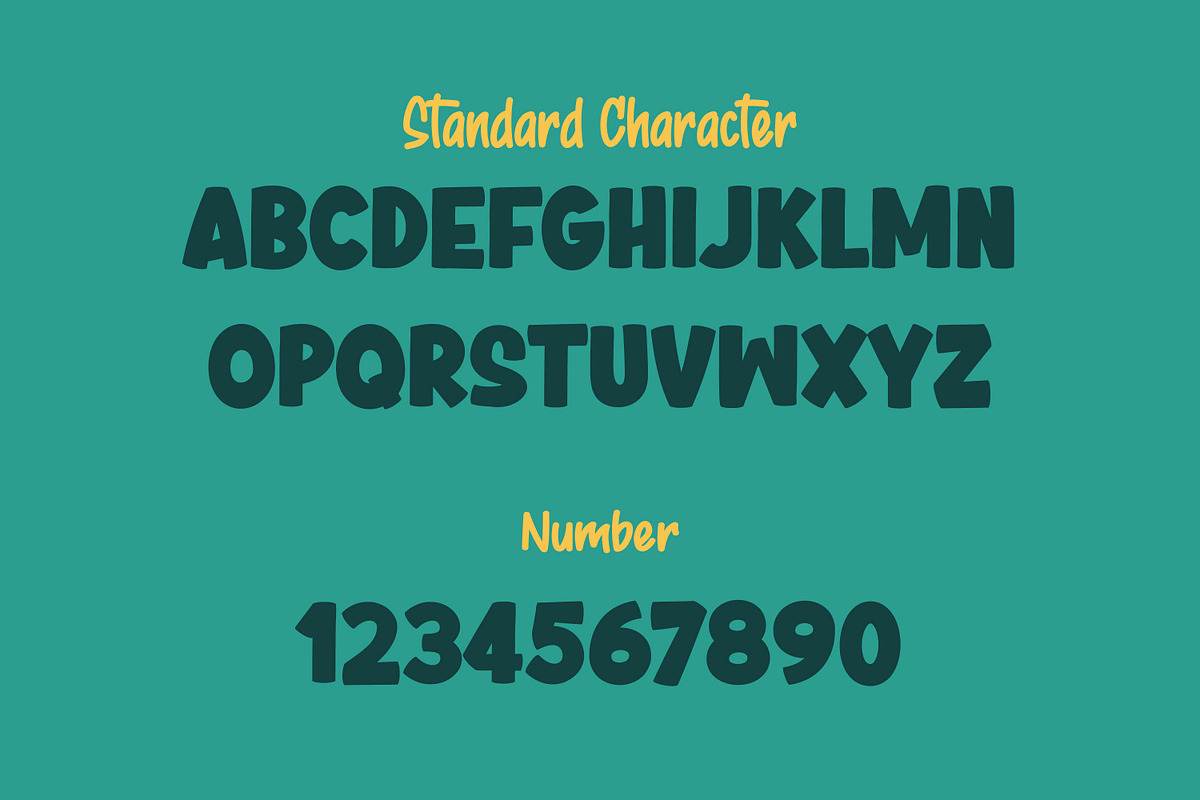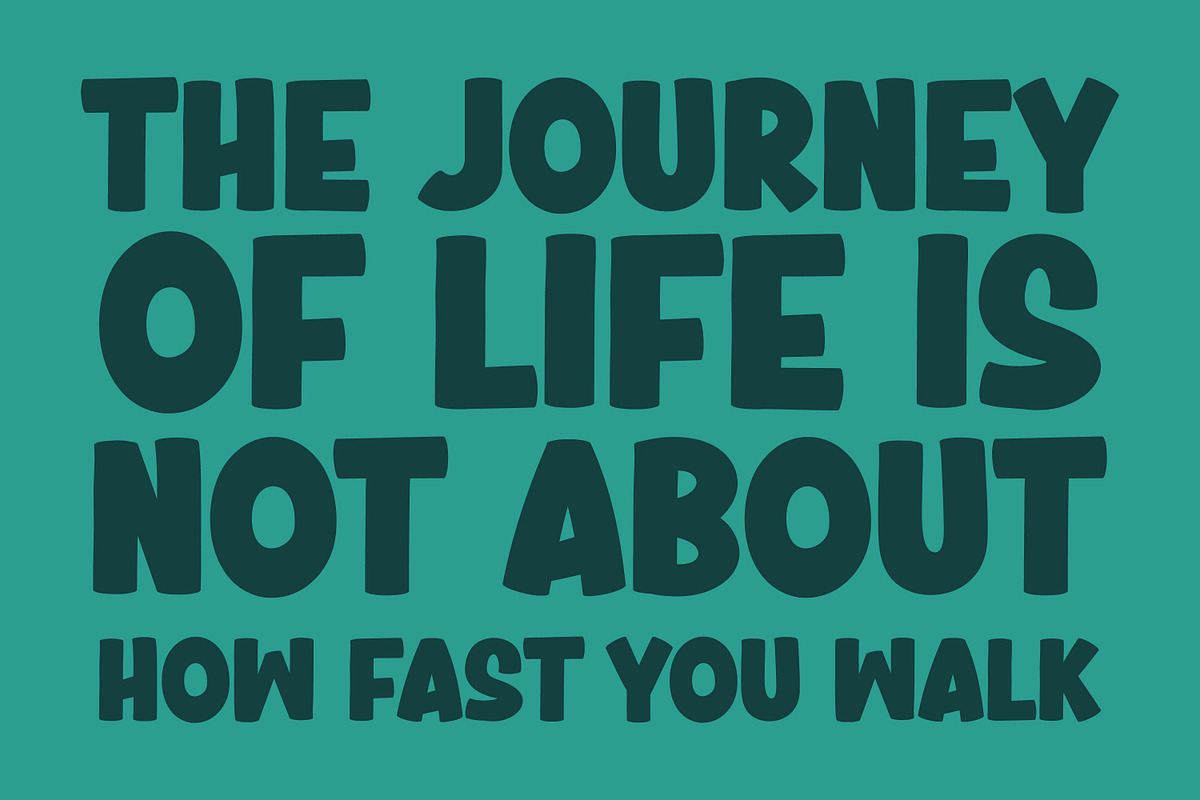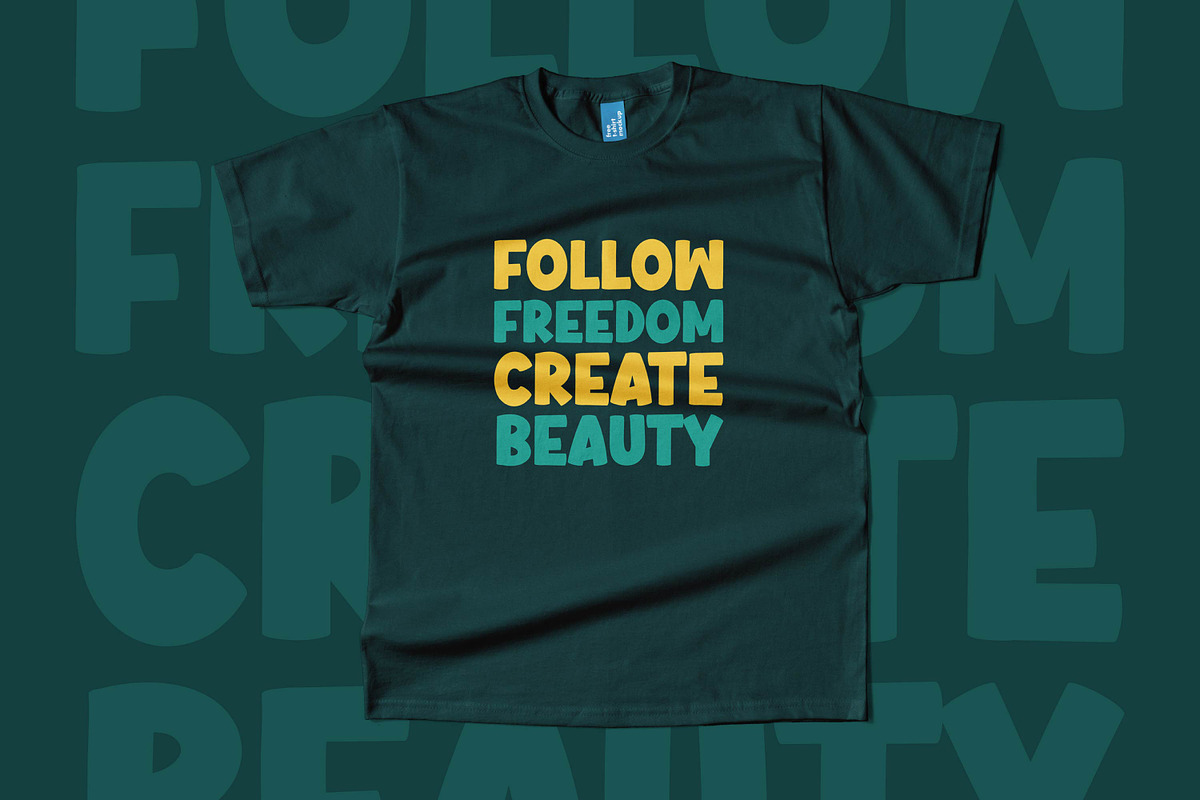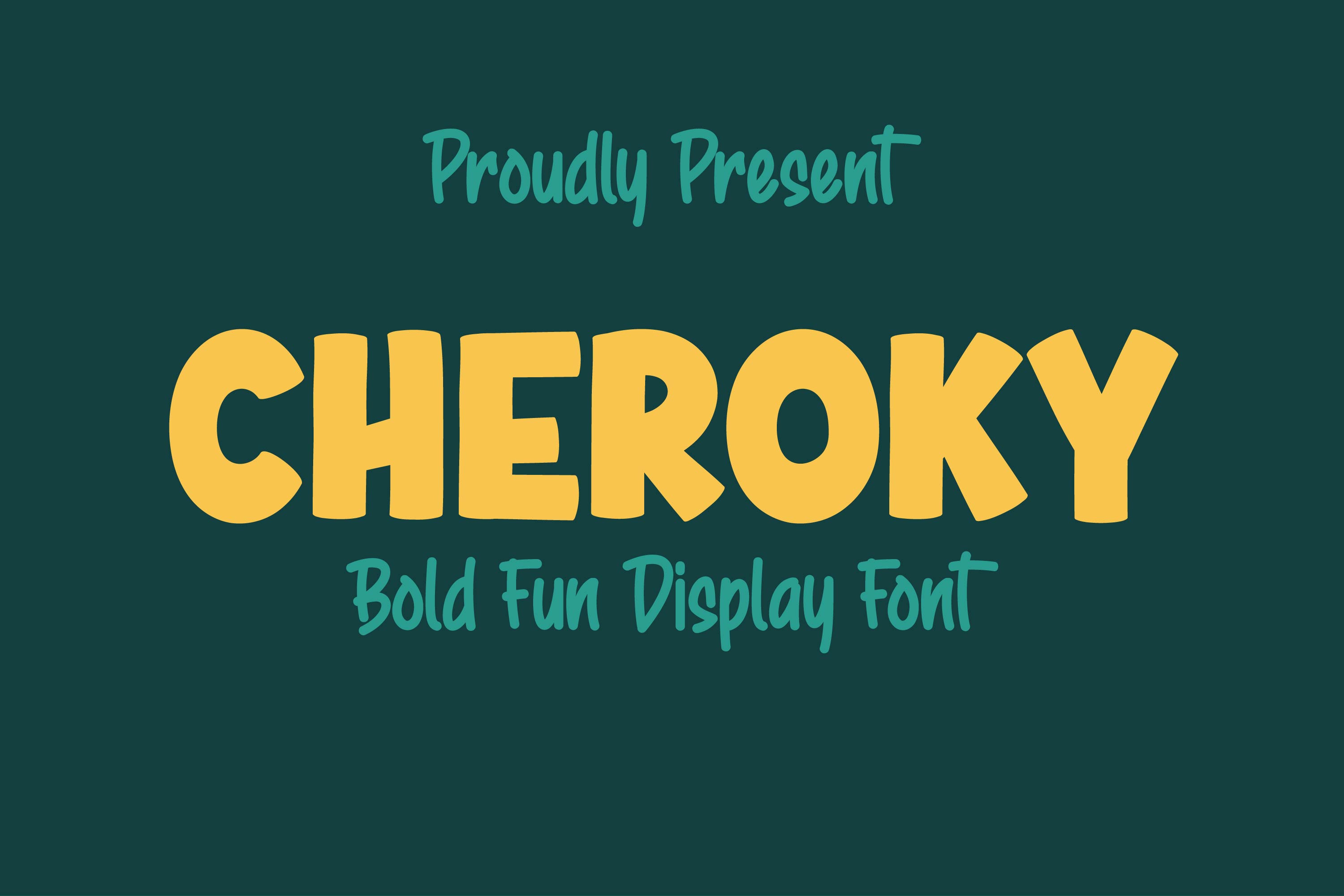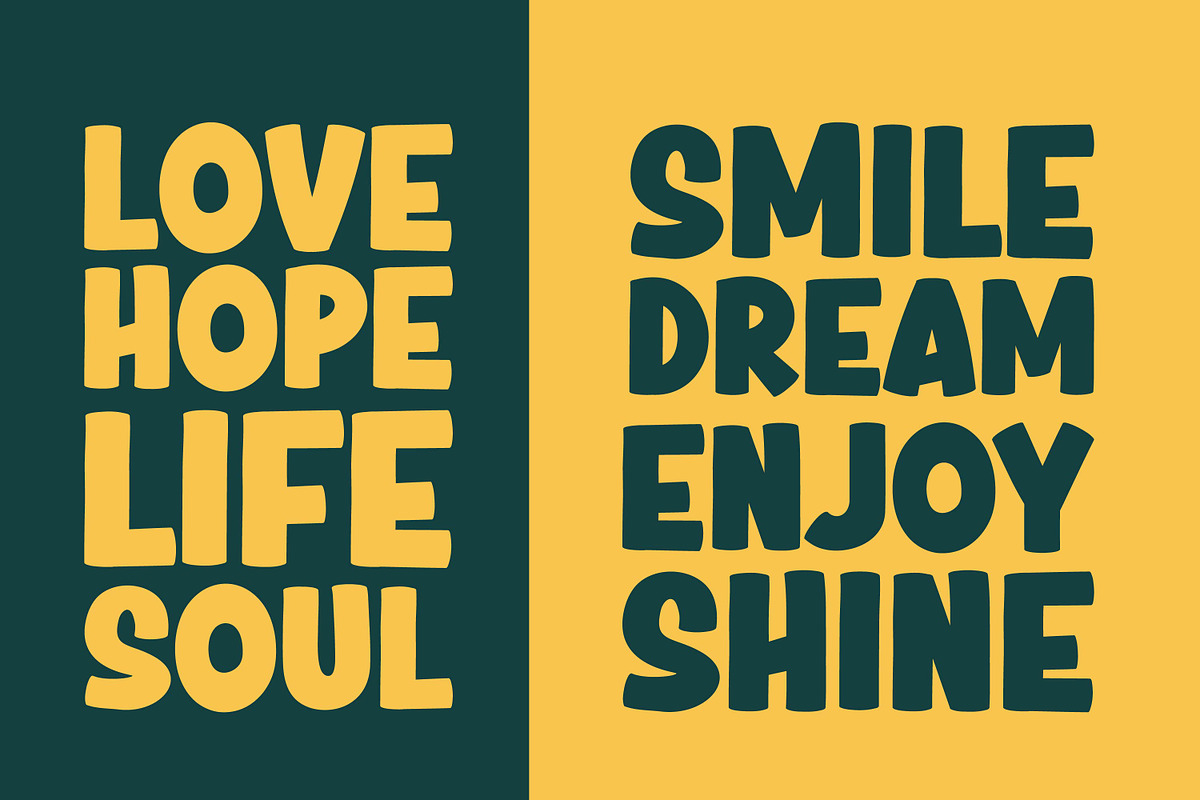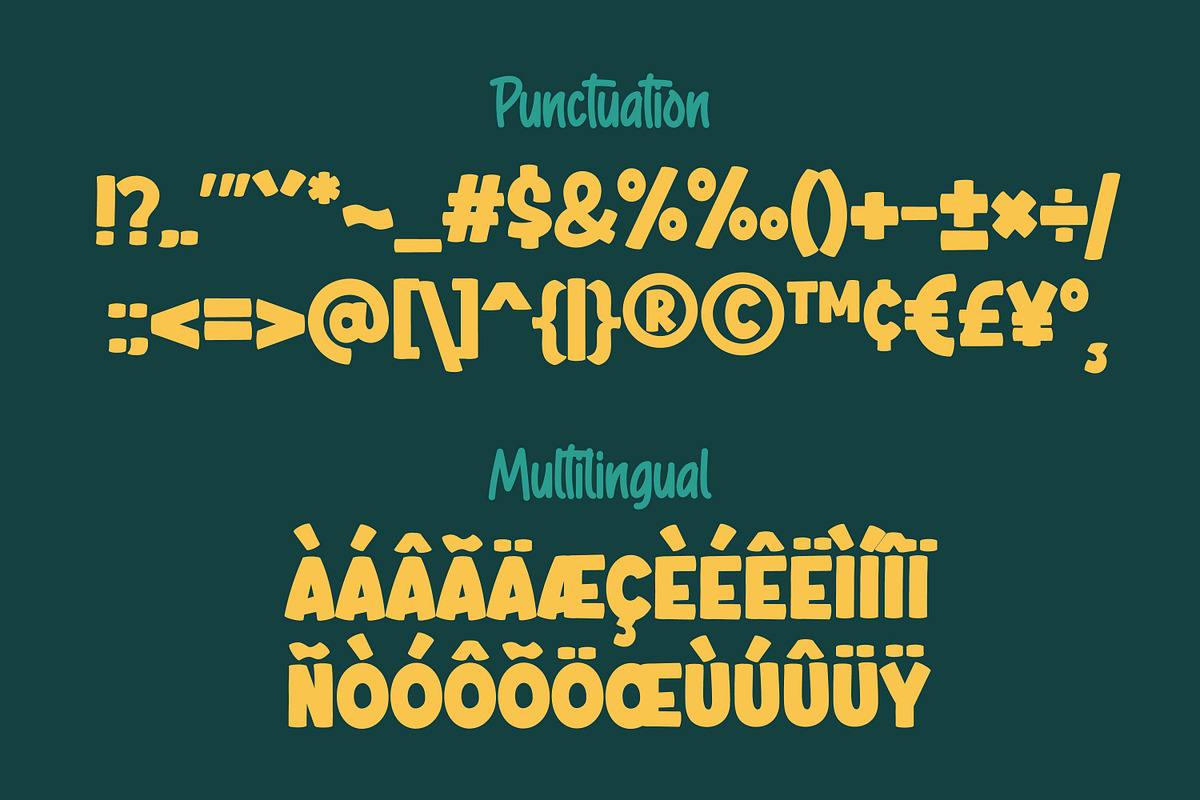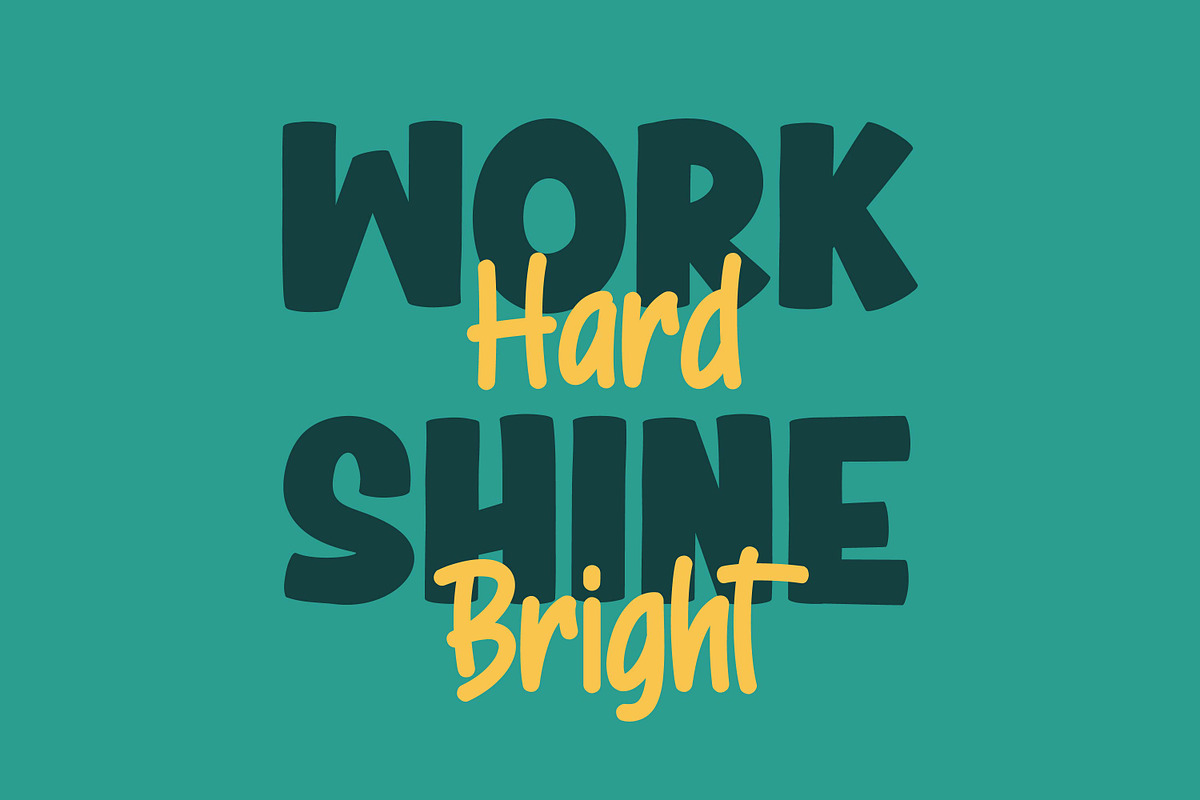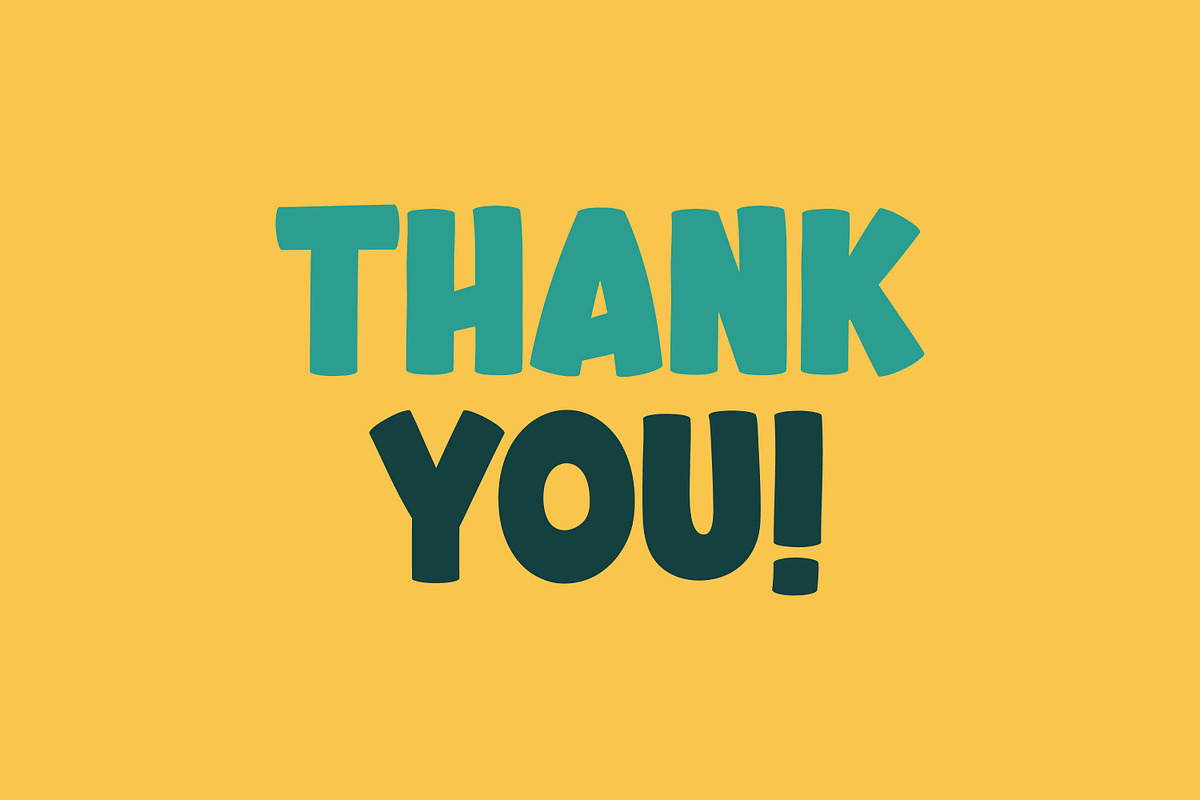
Cheroky - Bold Fun Display Font
Cheroky is a bold and fun display font full of character and joy. With its thick curves and playful energy, it’s perfect for logos, titles, posters, and cheerful packaging. Whether you’re designing for kids’ products or vibrant branding, Cheroky brings a confident and friendly vibe to every project.